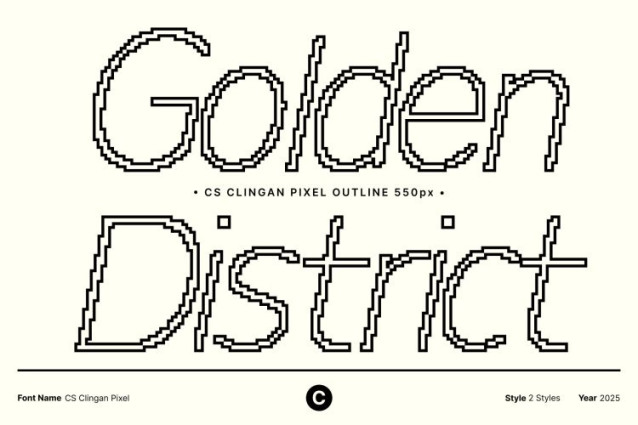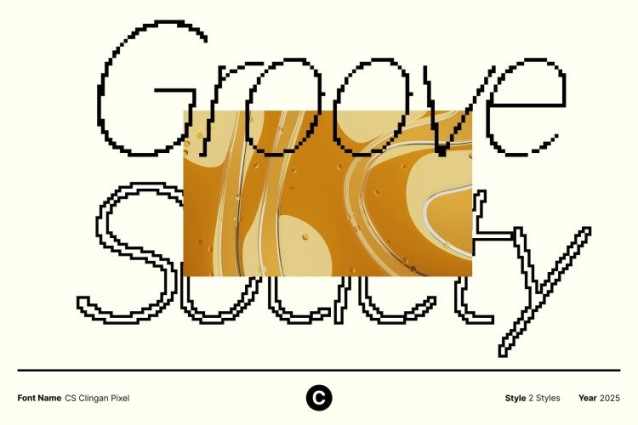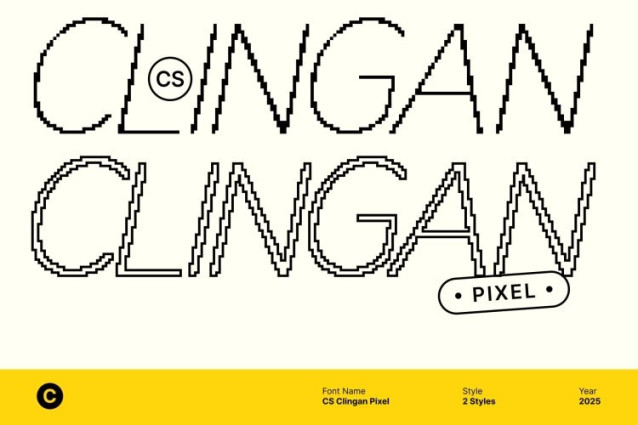
CS Clingan Pixel Font
CS Clingan Pixel Font This is a commercial-ready sans serif font designed to deliver clarity, precision, and a polished professional appearance. Built with balanced proportions and clean, thin sans serif forms, this typeface offers exceptional readability while maintaining a sleek modern tone. Its refined structure makes it a powerful choice for brands and designers who value visual consistency and clean communication.
Pixelated Styling for a Distinct Digital Character
Enhancing its modern framework, this font integrates a pixelated digital effect that adds a unique technological edge. This digital inspired texture transforms the clean sans serif base into a font that feels contemporary and visually engaging, making it ideal for tech-themed graphics, digital branding, and modern visual identities.
Optimized for Advertising and Corporate Visuals
With its crisp readability and strong visual presence, this font excels in advertising layouts, packaging design, and corporate branding systems. Its clean forms communicate professionalism, while the pixel influence adds a fresh, dynamic twist. From product labels to brand assets, this typeface helps reinforce clear messaging while enhancing visual appeal.
Versatile for Digital, Print, and High-Impact Designs
Whether used in digital interfaces, print campaigns, or modern editorial projects, adapts seamlessly across mediums. Its combination of professional structure, digital charm, and polished character makes it suitable for logos, posters, UI design, marketing materials, and corporate identities.